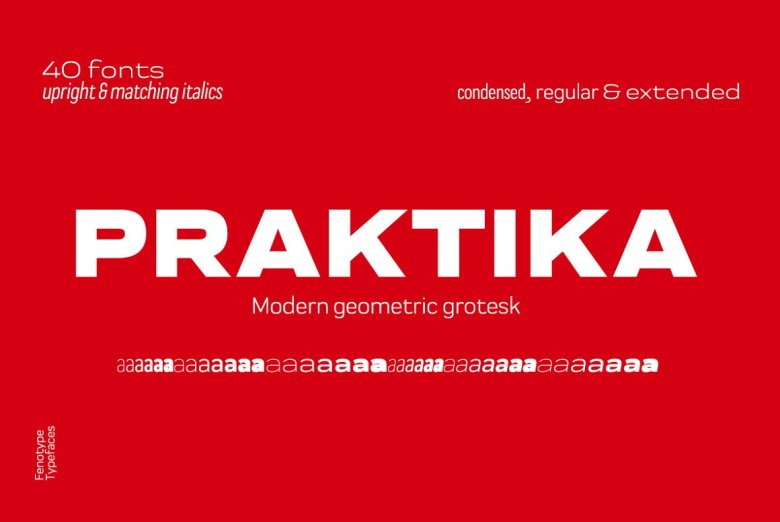
Praktika Font Family
I am very honored and happy to be introduced to you a new font family. Introducing Praktika Font Family! Praktika designed by Emil Karl Bertell and was published by Fenotype. Praktika is a multifunctional super family of 40 fonts. It consists of three distinct widths and weights from extra light to extra bold. Conceptually, it is a rendition of the familiar early 20th century European grotesque styles, used in road signage – reimagined to meet the needs of contemporary world.